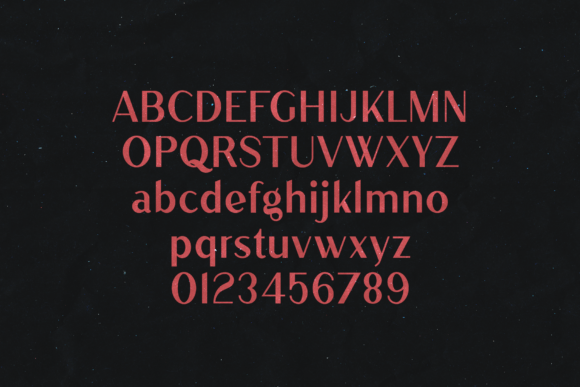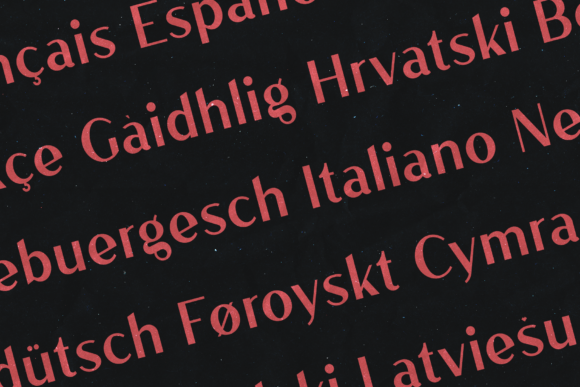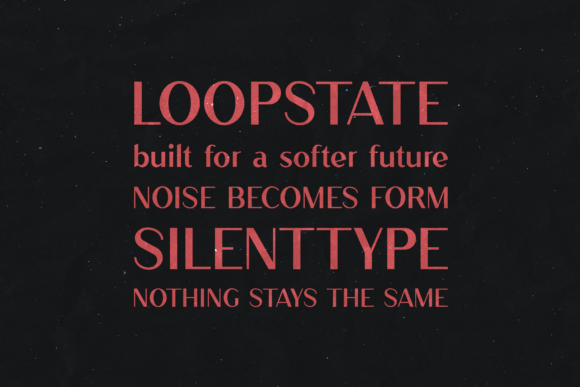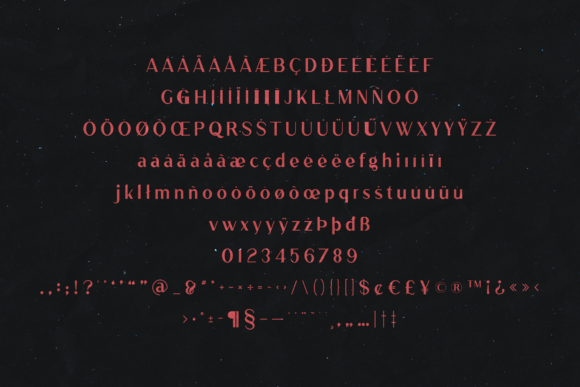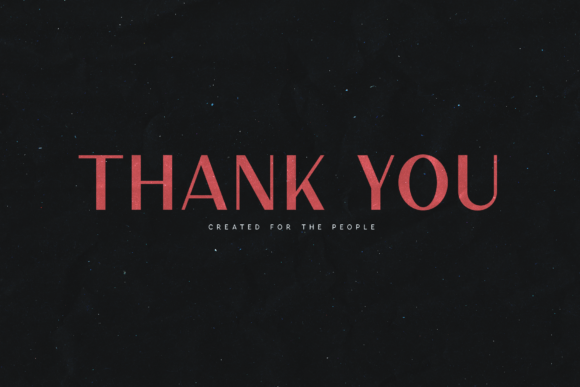
Introduction to Ludic Font
Remember that moment when you stumbled upon the perfect font to elevate your design project? For many designers, it’s a feeling of excitement and relief. The right font can make all the difference in conveying your message and capturing the attention of your audience. In this article, we’ll dive into the world of the Ludic Font, a clean and contemporary display sans serif typeface that’s sure to become a valuable design resource for your creative projects.
Designed with bold visual communication in mind, the Ludic Font features balanced proportions, smooth geometric shapes, and strong readability. Its modern construction makes it an ideal choice for a wide range of design applications, from branding and editorial layouts to posters, packaging, and web design. Whether you’re looking for a free download or a high-quality font for your next project, the Ludic Font is definitely worth exploring.
With its refined shapes and transparent background, the Ludic Font is perfect for creating eye-catching headlines and clean modern layouts. Its versatility and strength make it a valuable addition to any designer’s toolkit, and its contemporary style ensures that your designs stay up-to-date and on-trend.
Key Features of Ludic Font
- Unique blend of whimsical and modern design elements, making it perfect for creative projects.
- Designed to be highly versatile, suitable for use in a wide range of creative projects, from logos to typography.
Honest Review: Ludic Font
As a designer, I’m always on the lookout for high-quality design resources to elevate my creative projects. Recently, I had the chance to try out the Ludic Font, and I’m excited to share my honest review.
- High-quality typography: The Ludic Font boasts beautiful, intricate details that make it perfect for designs where typography takes center stage.
- Transparent background: The font’s transparent background makes it easy to layer and composite with other design elements.
- Limited character set: The Ludic Font’s character set is a bit limited, which might be a drawback for designers working on projects that require a wide range of characters.
- Not suitable for body text: While the font is great for headlines and titles, it might be too ornate for body text, where readability is key.
Overall, I’m impressed with the Ludic Font’s unique style and high-quality design. While it has some limitations, it’s a great addition to any designer’s toolkit, especially for creative projects that require a touch of elegance and sophistication.
Ludic Font
The Ludic Font is a high-quality design resource ideal for creative projects that require a unique and playful touch. This free download offers a transparent background, making it easy to integrate into various design platforms.
For the best results, use Ludic Font in conjunction with bright, playful colors and simple graphics. Common use cases include:
- Designing social media graphics and ads
- Creating presentations and reports
- Developing branding materials and logos
Alternatives to Ludic Font